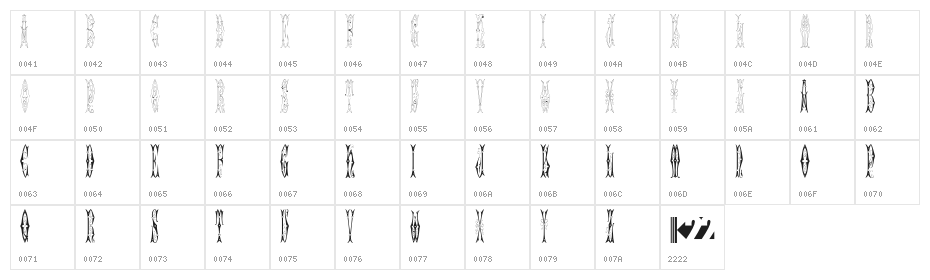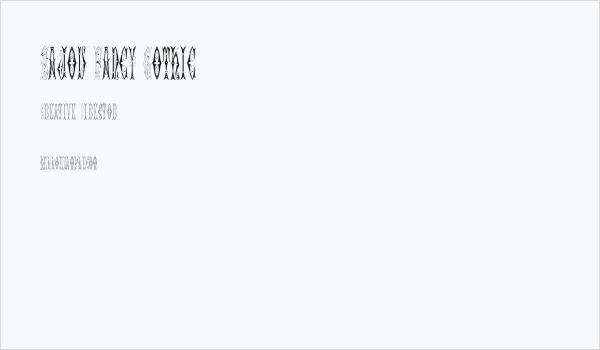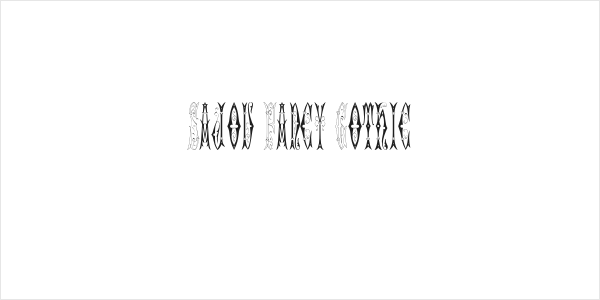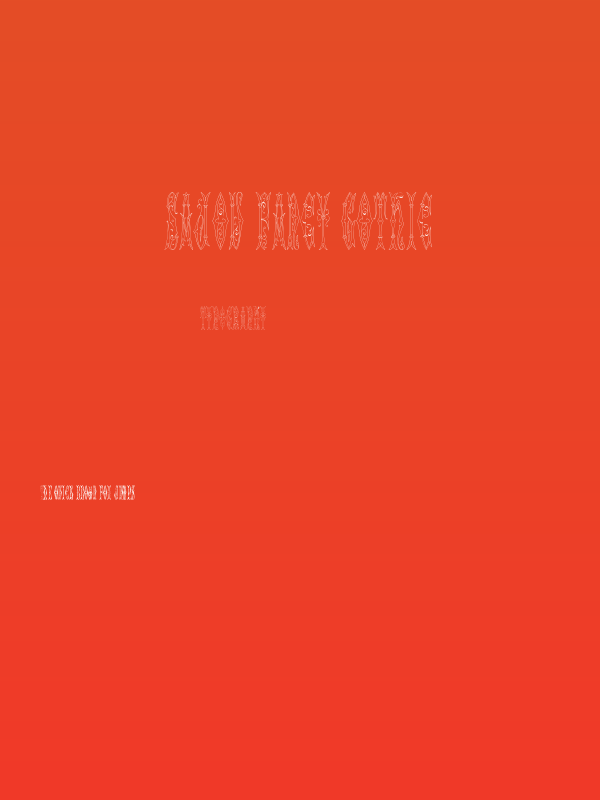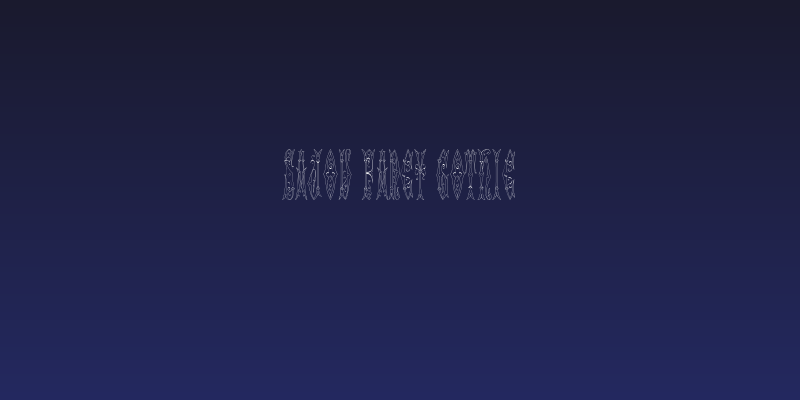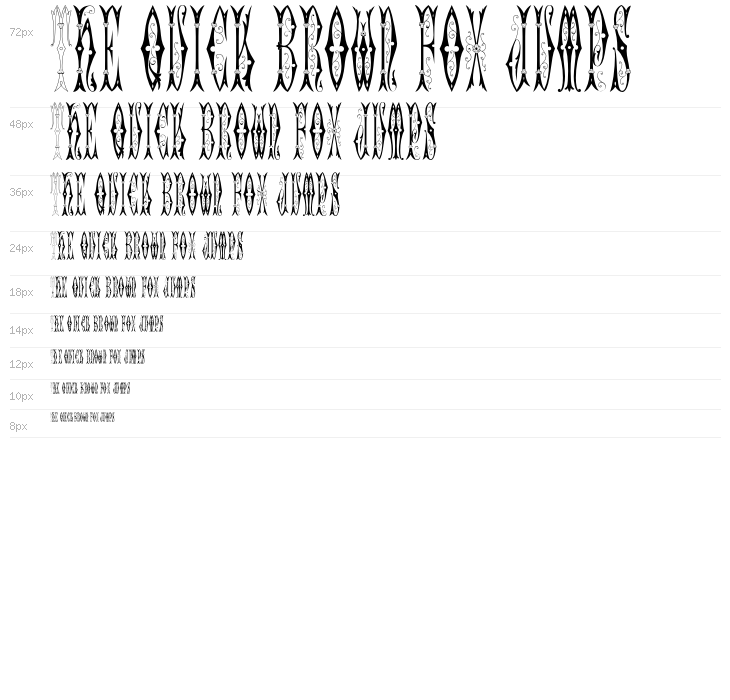
Sajou Fancy Gothic Font
Sajou Fancy Gothic Description
This font features an intricate and ornate design, characterized by elaborate flourishes and decorative elements that evoke a sense of Gothic elegance. The letters are highly stylized, with a strong emphasis on verticality and symmetry, creating a dramatic and bold appearance. The intricate detailing within each character adds a layer of complexity, making it visually captivating. This font is best suited for projects that require a touch of historical or vintage flair, as its design elements are reminiscent of medieval manuscripts and classic Gothic architecture.
| Use Case | Logos, Headlines, Decorative purposes |
| Proposed Projects | Ideal for use in vintage-themed posters, book covers, wedding invitations, and branding that requires a historical or Gothic touch. |